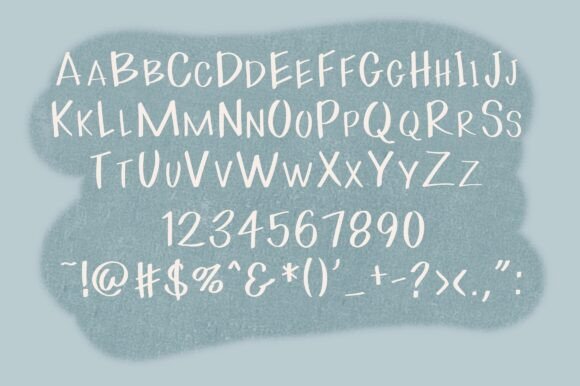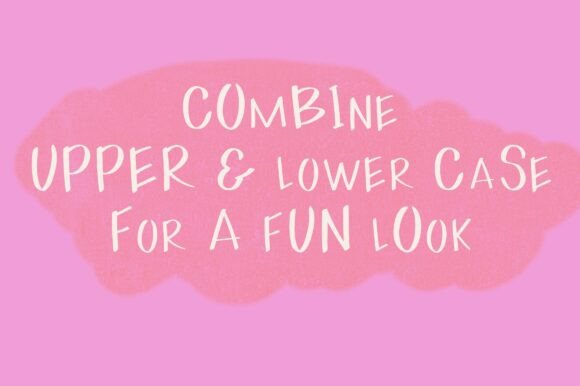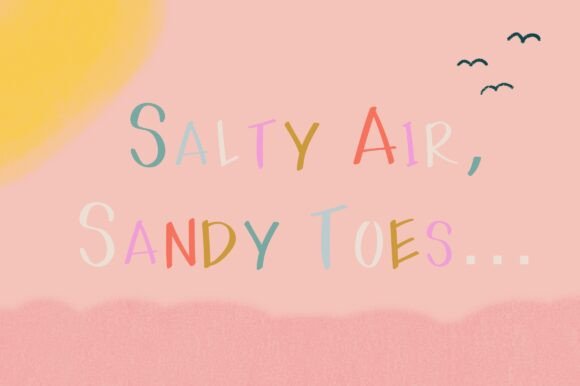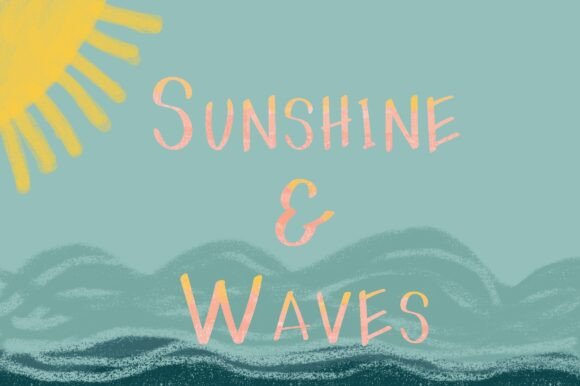
Adding a Breath of Fresh Air to Your Designs
Remember that moment when you were brainstorming ideas for a new project, and nothing seemed to fit the tone you wanted to convey? You wanted your design to feel relaxed, yet attention-grabbing, and to transport your audience to a sunny day by the ocean? That’s exactly where the Breezy Hand Font comes in – a playful and relaxed handwritten font that brings a touch of casual charm to any project.
This versatile script is perfect for crafting, branding, invitations, and creative designs, with its clean, hand-drawn aesthetic and natural flow working seamlessly on both digital and print media. Whether you’re designing beach-themed posters, whimsical wedding invites, or fun social media graphics, the Breezy Hand Font will elevate your designs with its breezy and lighthearted style.
Breezy Hand Font Key Features
- Font Family: Breezy Hand is a handwritten font designed to evoke a sense of casual elegance and sophistication.
- Unique Characteristics: Breezy Hand features a unique blend of organic and geometric elements, giving it a distinctive and eye-catching appearance.
Breezy Hand Font Review
Overall, I’m quite impressed with the Breezy Hand Font. Here’s what works well: ✨ It’s incredibly versatile and can be used for a wide range of projects, from logos to signage. ✨ The font’s organic feel and subtle imperfections give it a unique, handmade look that’s perfect for branding and advertising. ✨ The font also comes in a range of weights and styles, making it easy to customize to suit your needs.
However, there are a few limitations to keep in mind: ⚠️ At small font sizes, the letterforms can become a bit blurry and difficult to read. ⚠️ The font’s organic feel can sometimes be a bit too loose and inconsistent, making it harder to achieve a uniform look. ⚠️ The font doesn’t come with a lot of additional characters or symbols, which can be a limitation for certain projects.
In terms of overall impression, I think the Breezy Hand Font is a solid choice for designers looking for a unique, handmade look. While it may have a few limitations, its versatility and range of customization options make it a great option for a wide range of projects.
- Best for: Branding, advertising, signage, and other projects where a unique, handmade look is desired.
- Not recommended for: Projects that require a high level of precision or uniformity, or for use at very small font sizes.
Tips for Getting the Most Out of Breezy Hand Font
For the best results, use the Breezy Hand Font for:
- Titles and headings
- Invitations and event graphics
- Personalized stationery and cards
Experiment with different font sizes and styles to create a unique and eye-catching design.
The Breezy Hand Font is perfect for:
- Birth announcements and baby shower invitations
- Watercolor illustrations or floral patterns for a vintage look
- Gold or rose gold foil stamping for a luxurious feel
- A pastel color palette for a soft, romantic look
- Watercolor illustrations or hand-drawn icons for a fun and playful look
- Wooden textures or distressed backgrounds for a rustic feel
- A bright and bold color palette for a lively atmosphere